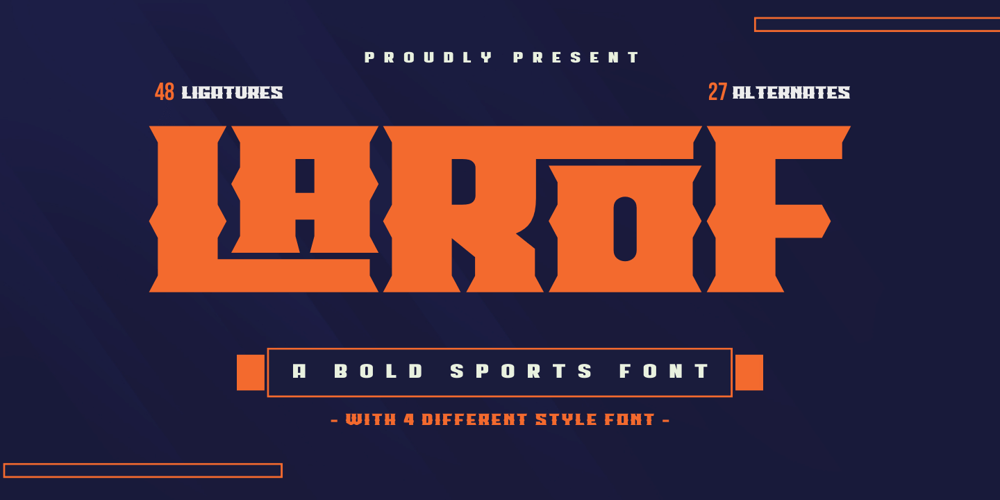
Larof Font Family was designed by Rozikan and published by Twinletter. Larof contains 6 styles and family package options. Introducing our newest font, the Larof Sports Font Family is an American sports graphic combination display font family inspired by classic and vintage styles, but with an eye for modernity. This font includes many shapes, perfect for logos, greeting cards, quotes, posters, branding, business cards, stationery, design titles, and so on.This font is also enriched with 6 styles of choice, which of course makes it easy for you to use it in various kinds of projects according to the theme you want. What are you waiting for, use this font and get an extraordinary visual project.What’s Included :- File font OTF, TTF, WOFF, WOFF2, CSS, HTML- All glyphs Iso Latin 1- Alternate, Ligature- Simple installations- We highly recommend using a program that supports OpenType features and Glyphs panels like many Adobe apps and Corel Draw so that you can see and access all Glyph variations.- PUA Encoded Characters – Fully accessible without additional design software.- Fonts include Multilingual support